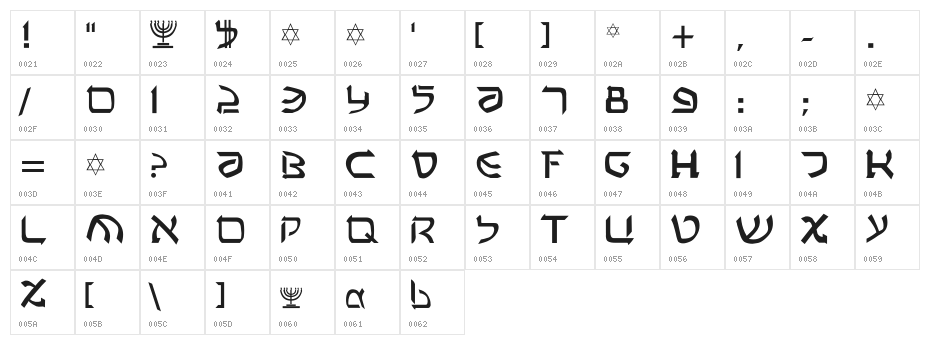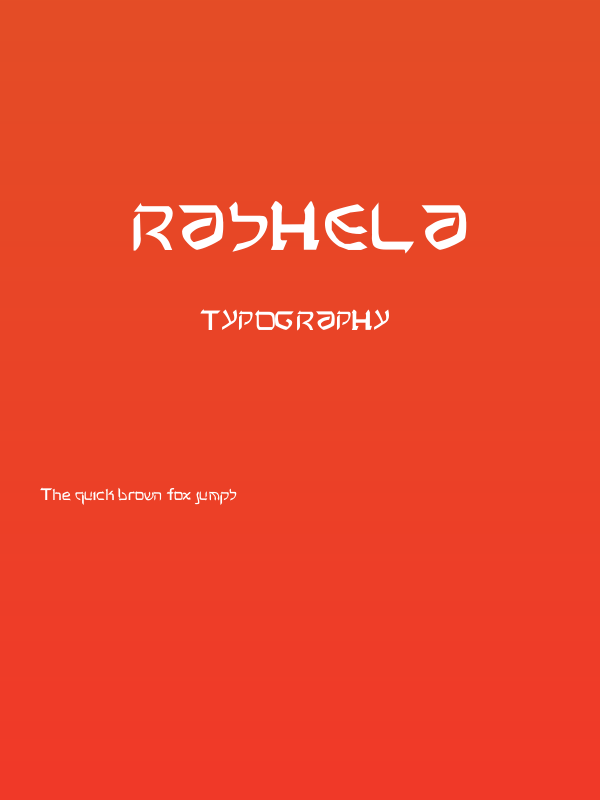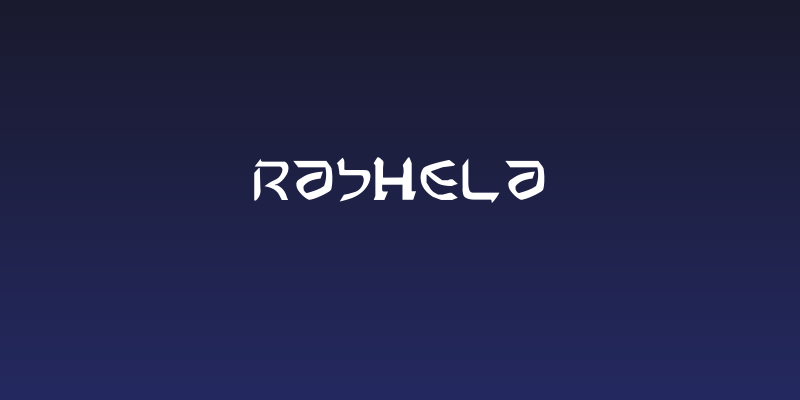
Rashela Font
Rashela Description
This font features a bold and angular design with a futuristic and geometric aesthetic. The characters are constructed with sharp edges and distinct angles, giving it a unique and modern appearance. The uppercase and lowercase letters maintain a consistent style, with some characters incorporating diagonal cuts and asymmetrical elements. The numerals and special characters follow the same design principles, ensuring a cohesive look across all glyphs. This font's striking and unconventional style makes it stand out, suitable for projects that require a bold statement.